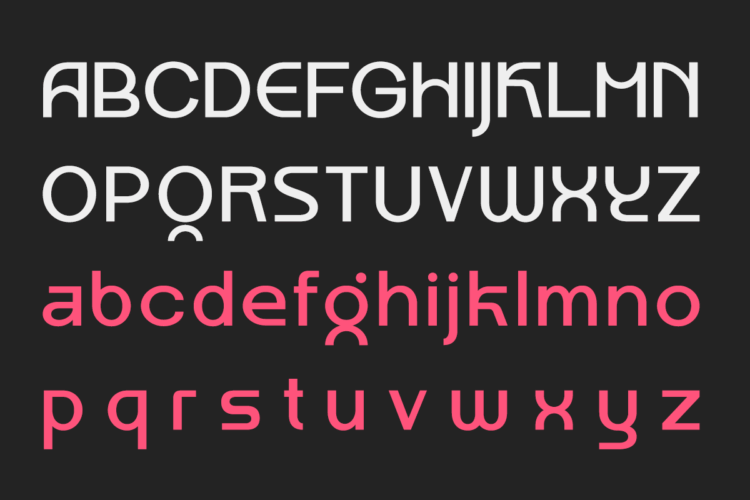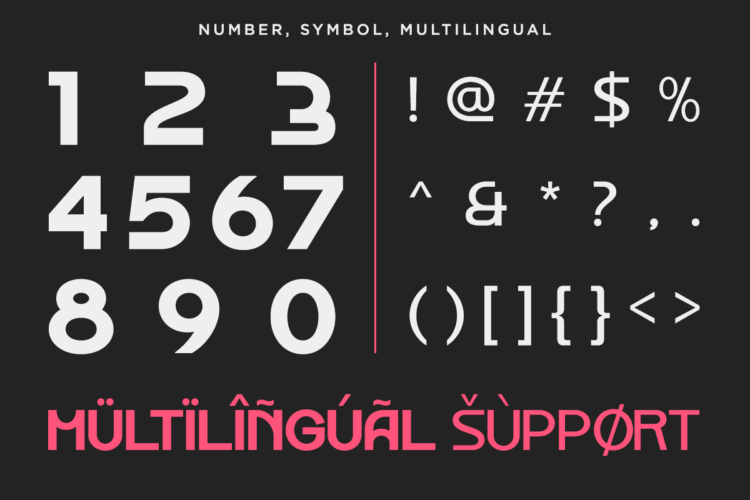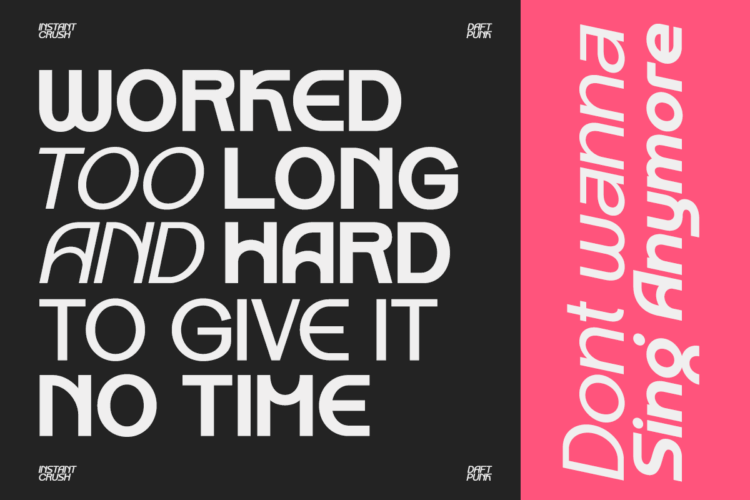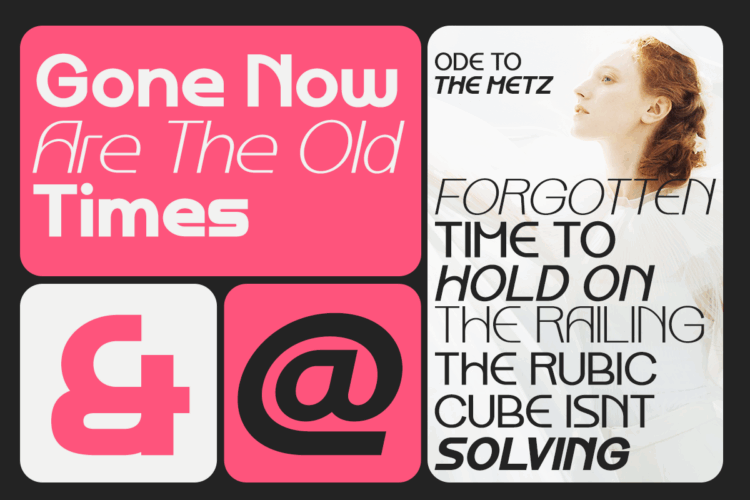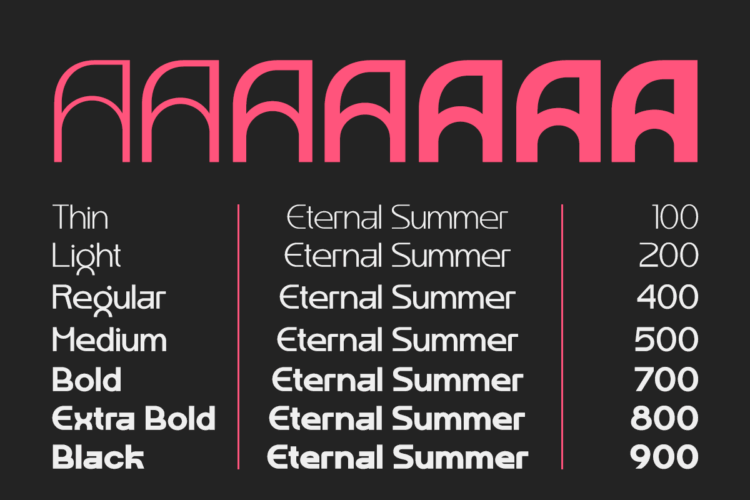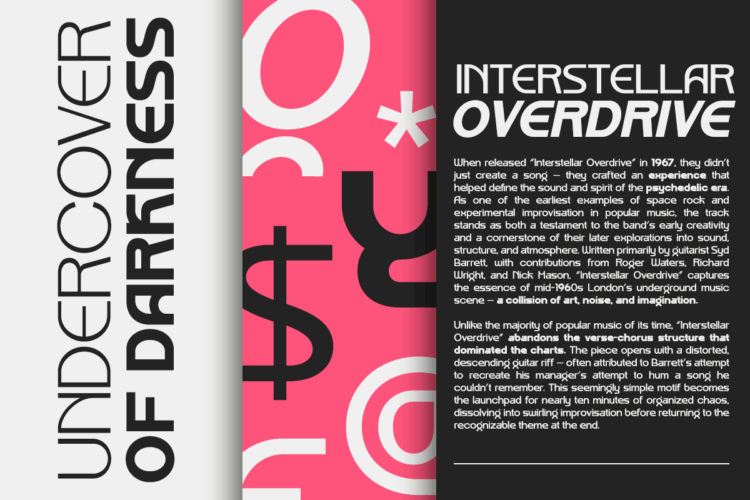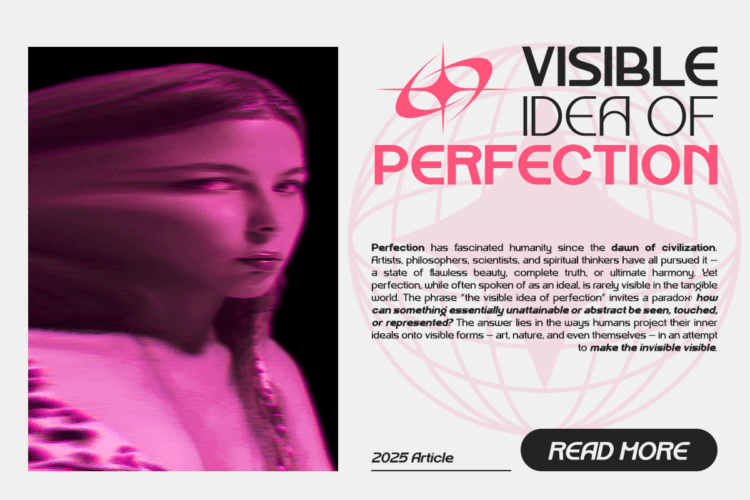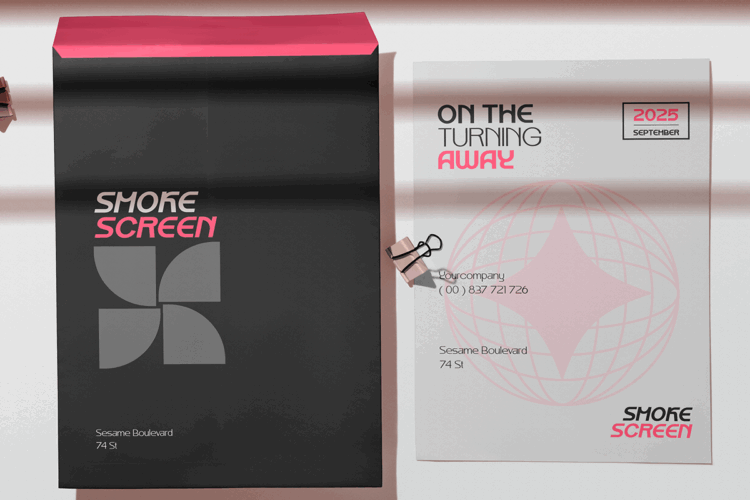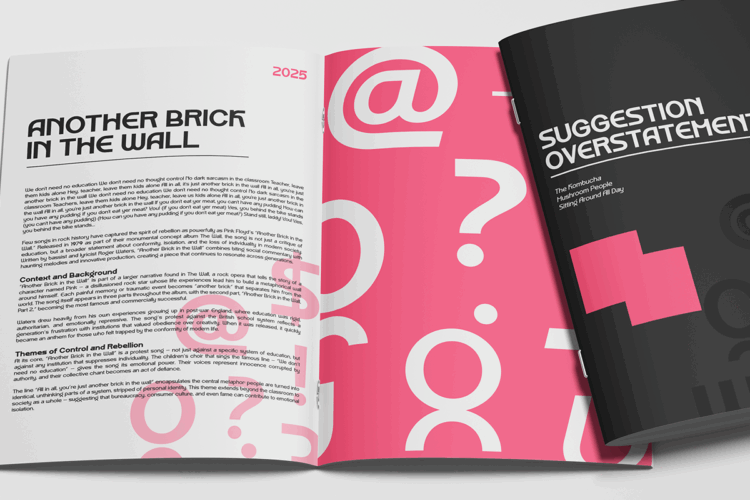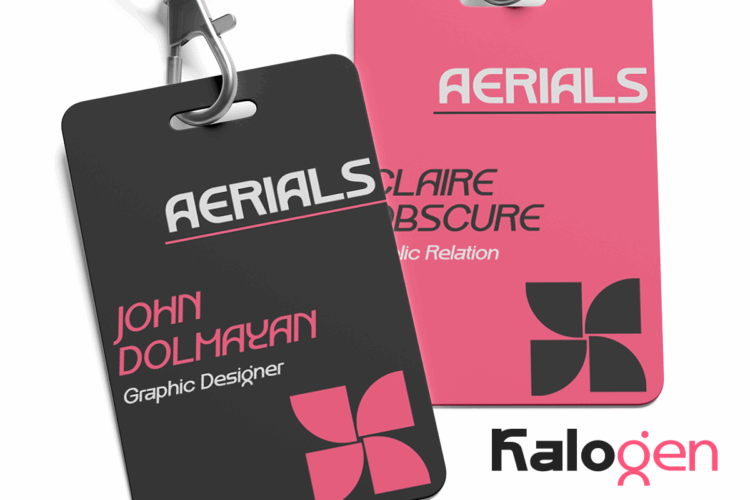
kalogen – 7 Variable Modern Sans Font
Kalogen is a variable modern sans font with 7 weights. Aesthetically pleasing sans serif font that combines geometric and humanist elements, delivering simplicity and versatility ideal for a wide range of projects with a timeless look. It’s perfect for creating impactful logos, eye-catching posters, social media graphics, fashion branding, and websites.
– Italic Version